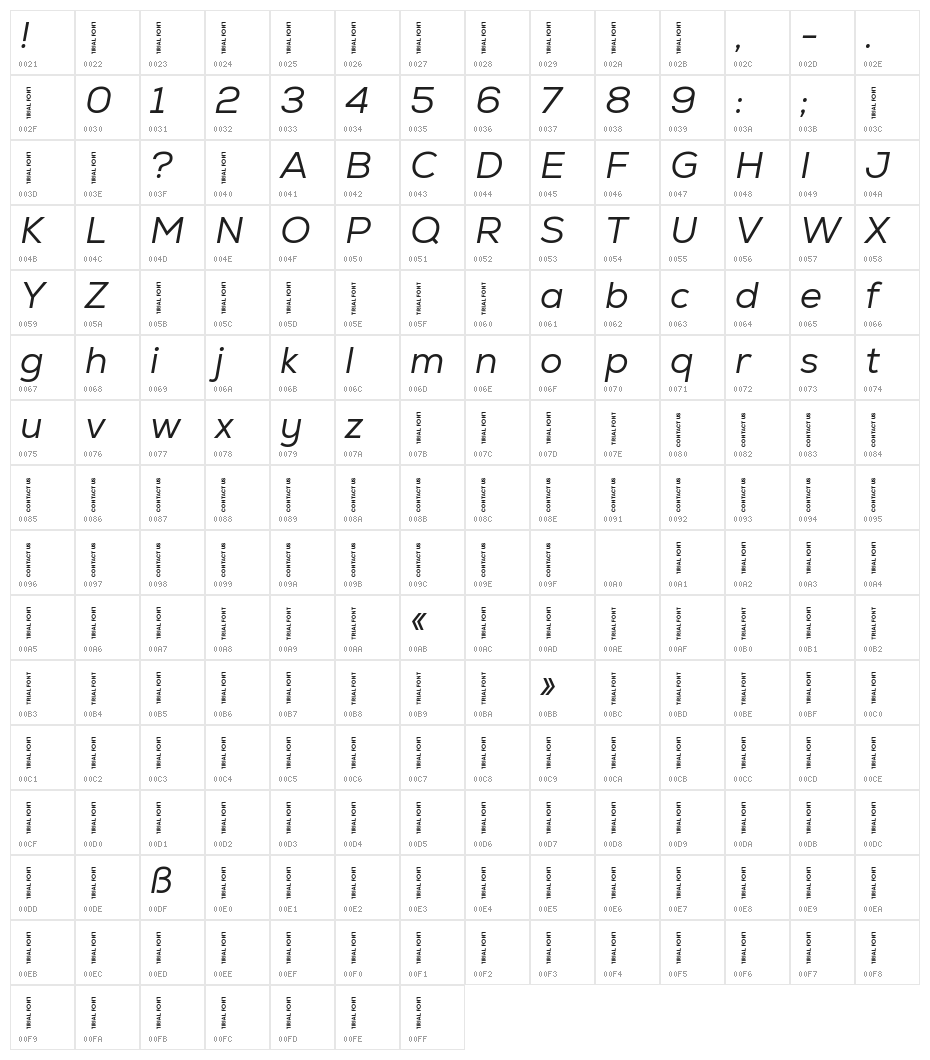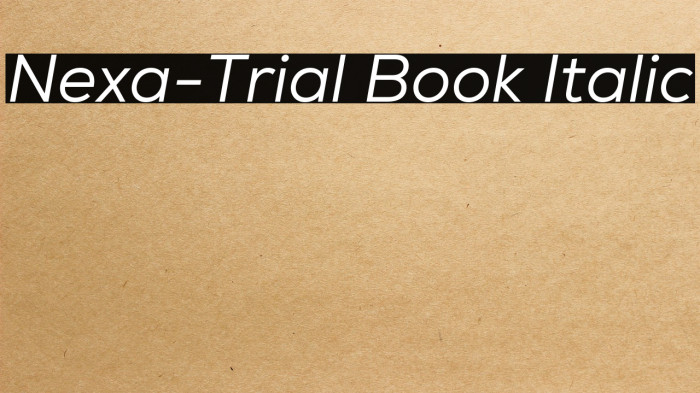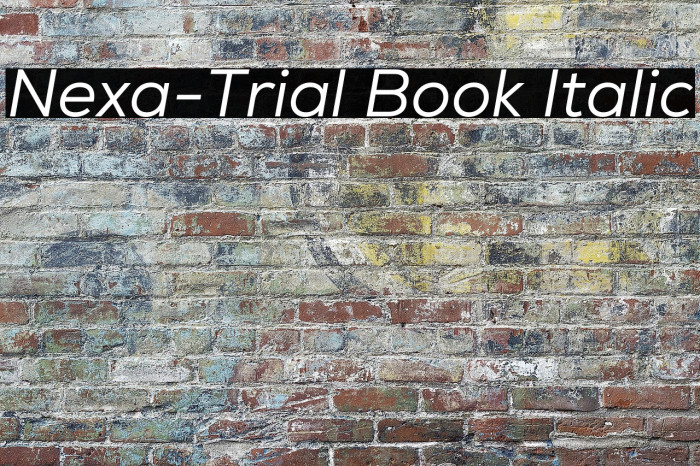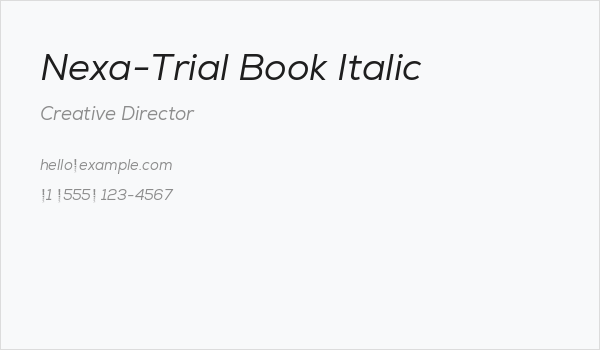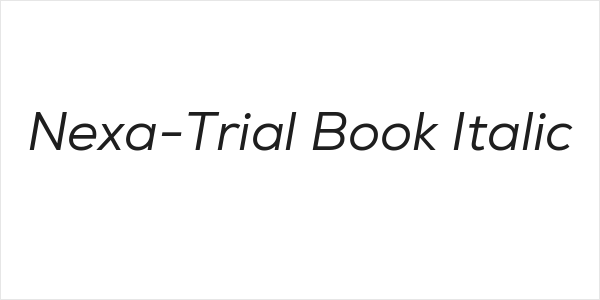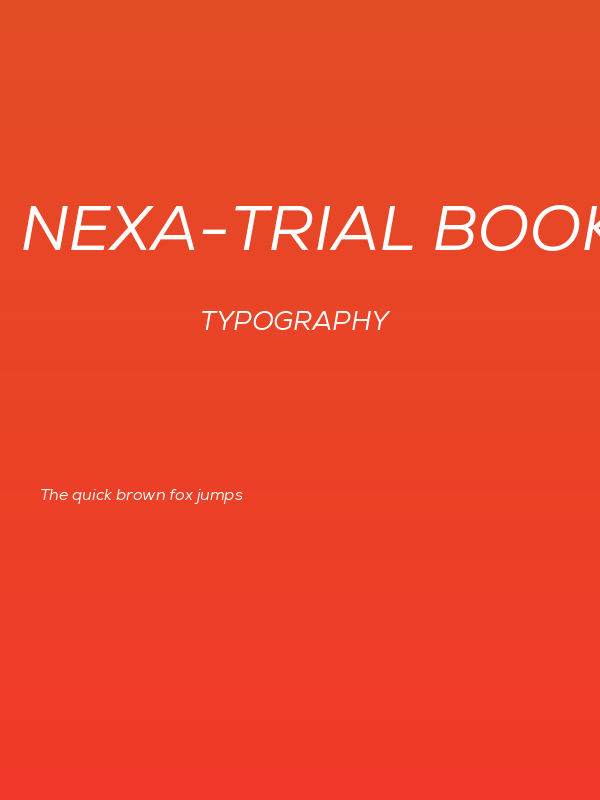
Nexa-Trial Book Italic Font
Nexa-Trial Book Italic Description
This font features a clean and modern sans-serif style with a slight italic slant, giving it a dynamic and contemporary feel. The characters are well-proportioned, with smooth curves and a consistent stroke width that maintains readability across various sizes. The numerals are clear and distinct, matching the overall aesthetic of the alphabetic characters. Special characters are included, maintaining the same sleek design. The font's simplicity and elegance make it versatile for a range of applications.
| Proposed Projects | Ideal for branding, editorial design, websites, and advertising where a modern and professional look is desired. |